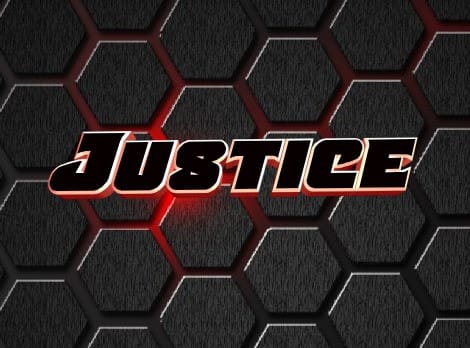
Justice Font
Justice Font, it would be a perfect choice to design posters, affiches, logos, t-shirt and magazine prints, eye-pleasing typographic designs and more.